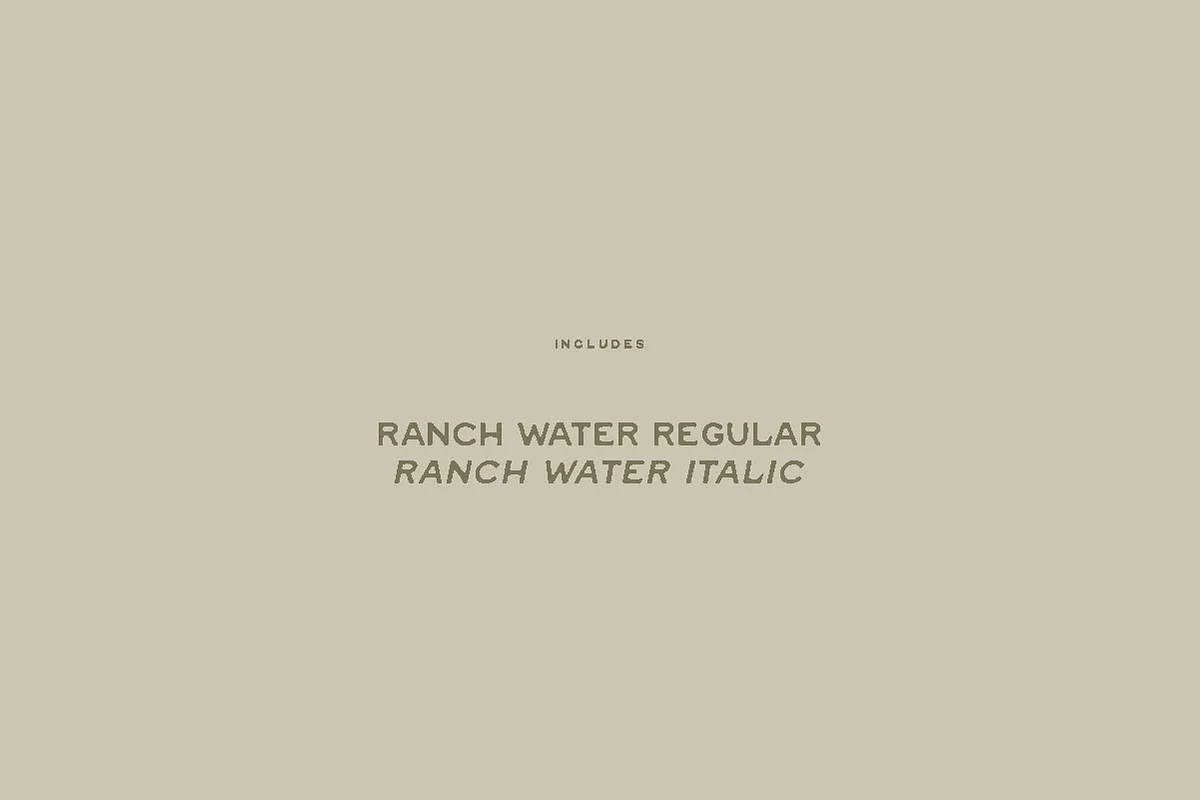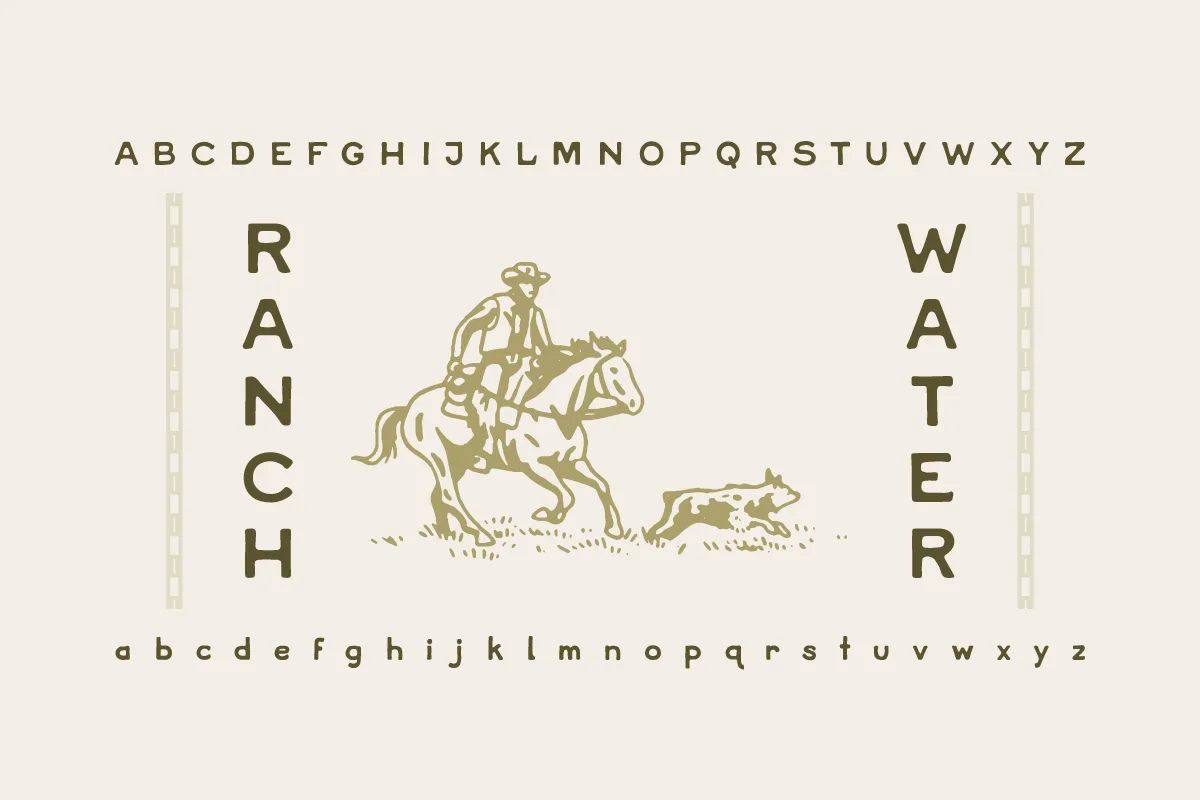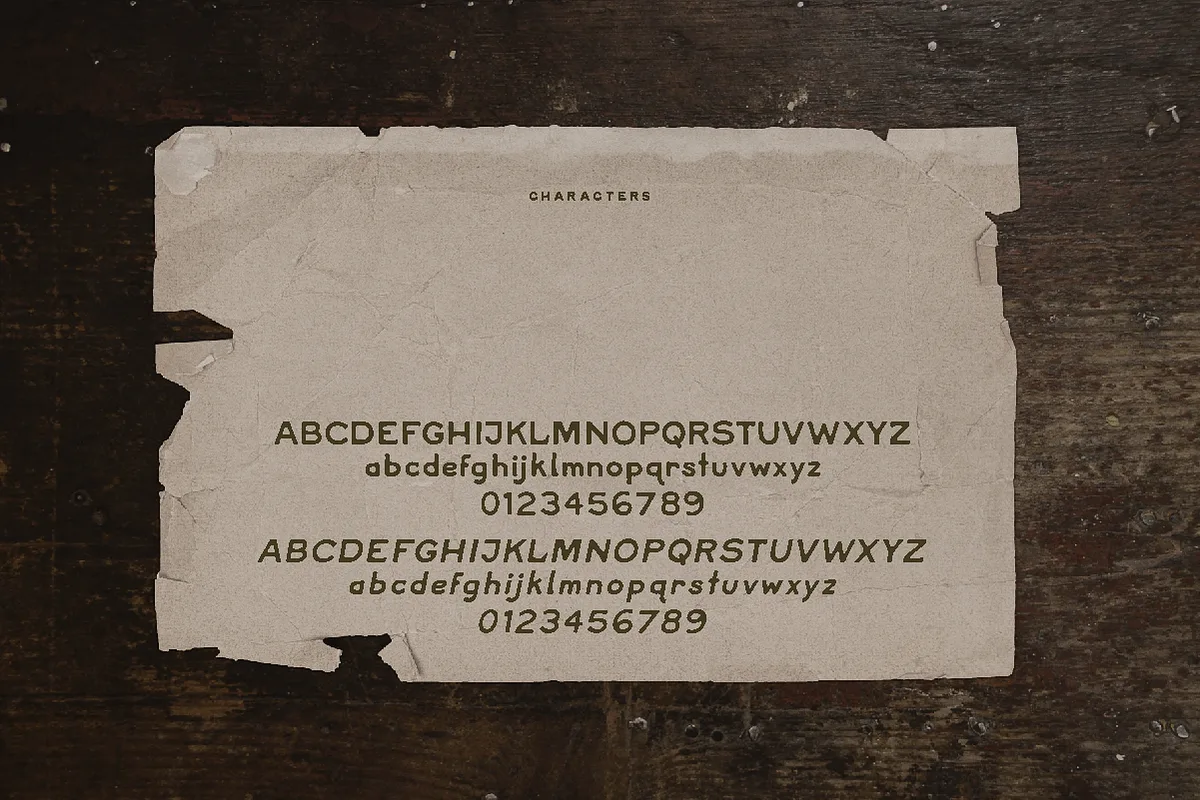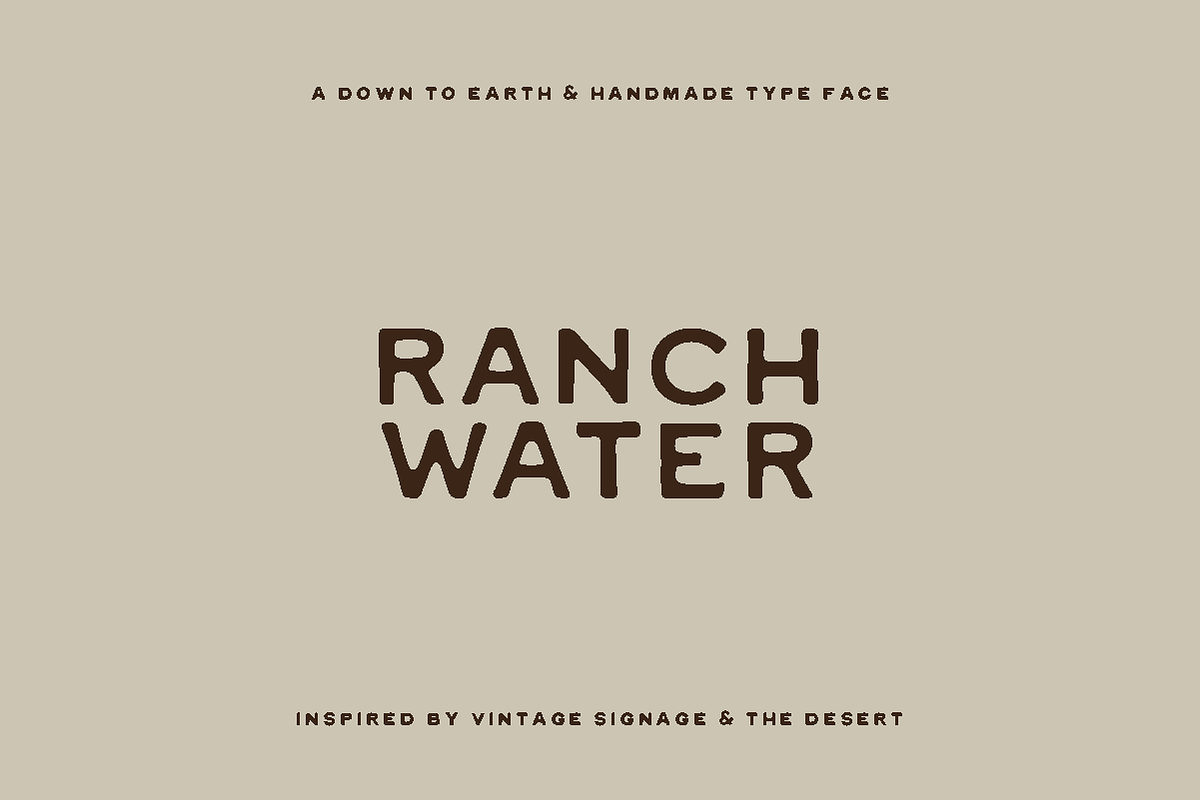
Ranch Water is a refined and slimmer evolution of the popular Cowboy font, designed to bring a more versatile and balanced look while preserving the authentic spirit of the Wild West. Inspired by bold, rugged western signage, this vintage serif font captures a handcrafted, rustic aesthetic perfect for modern creative projects.
With the addition of lowercase characters, Ranch Water offers greater flexibility for typography, making it ideal for branding, packaging, logos, posters, and product labels. Its clean yet character-rich design makes it suitable for both bold headlines and subtle, down-to-earth compositions.
This western-style font supports multiple languages, including English, Spanish, French, and German, making it a great choice for both local and international brands.
Whether you’re designing for a rustic brand, a vintage-inspired product, or a modern western identity, Ranch Water delivers a unique blend of tradition and versatility.